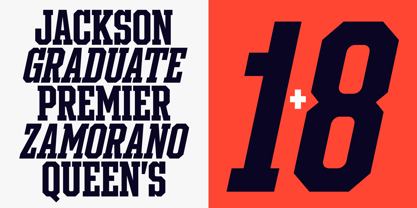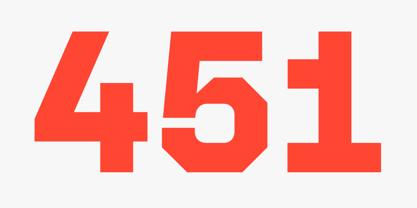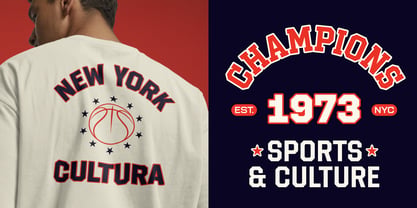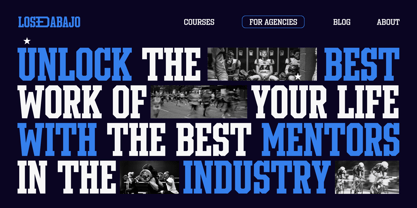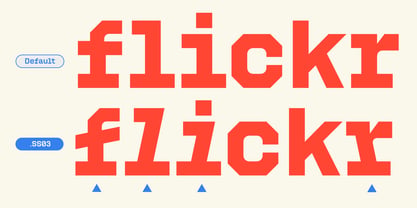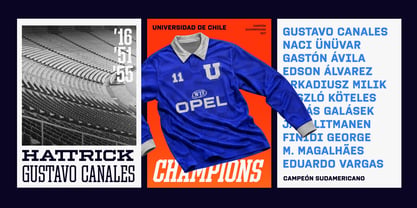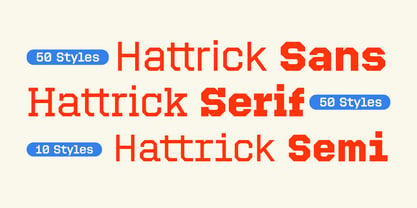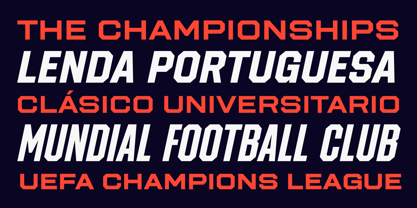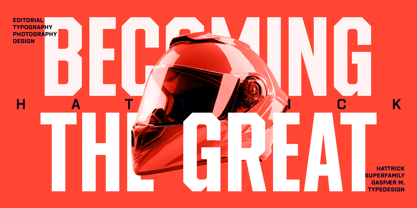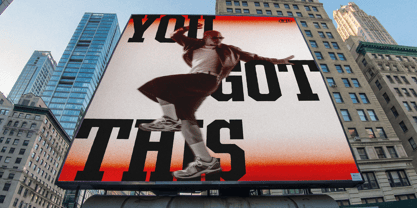
Hattrick
by W Type Foundry
The Hattrick Font Family was designed by Gaspar Muñoz and published by W Type Foundry. Hattrick contains 110 styles and family package options. More about this family
Hattrick is a versatile type superfamily inspired by classic varsity lettering and retro sports aesthetics, designed to embody the vibrant energy of college jerseys, American football uniforms, and traditional athletic graphics. With 110 styles across Sans, Serif, and a hybrid Semi subfamily, Hattrick serves as a comprehensive typographic system for crafting strong, memorable, and scalable identities. The Sans styles offer strength and modern clarity, while the Serif styles provide a classic editorial character. The Semi subfamily introduces a contemporary twist with a technical, almost monospaced rhythm that creates visual tension without sacrificing control. Ideal for sports branding, editorial design, packaging, merchandising, and identity systems, Hattrick excels in both high-impact headlines and intricate typographic environments. This typeface is crafted to stand out in competitive contexts, ensuring that visual identity is immediate, recognizable, and full of character.
Designers: Gaspar Muñoz
Foundry: W Type Foundry